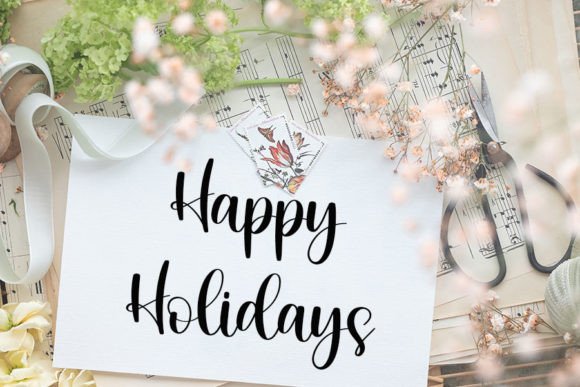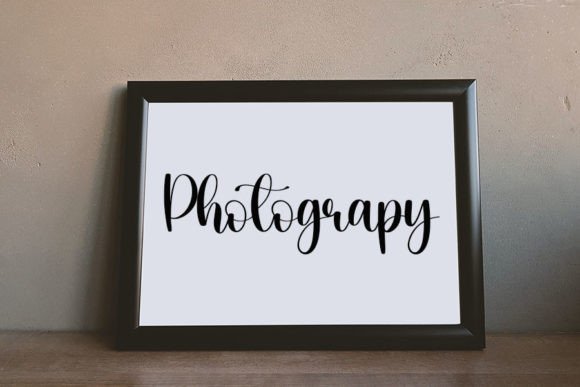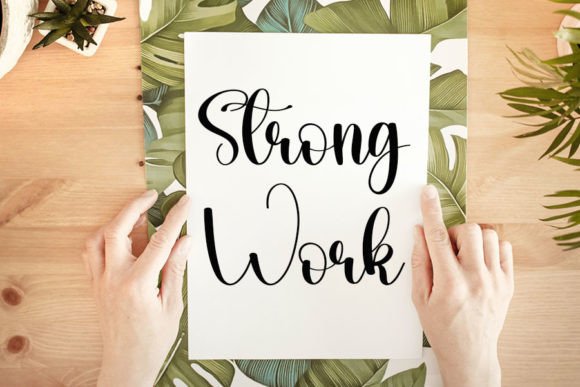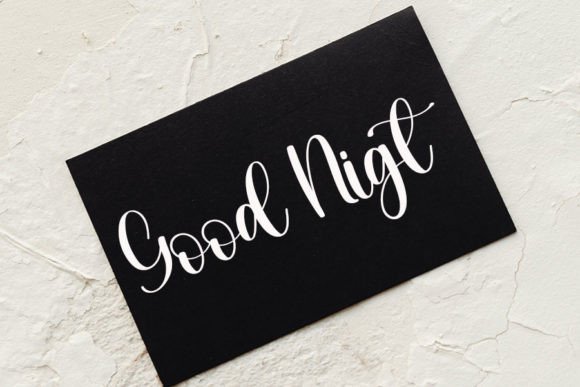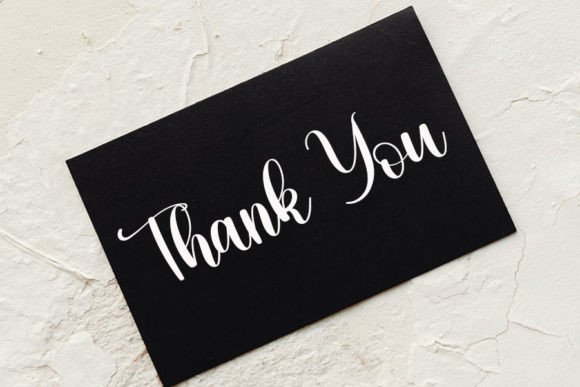
Get Ready to Fall in Love with the Boho Font
Remember that moment when you were brainstorming ideas for a new project and suddenly, a spark of creativity hit you? You felt like you were on top of the world, and all your ideas seemed to flow effortlessly. That’s exactly the feeling you’ll get when you start working with the Boho Font – a fun and friendly handwritten font that’s perfect for any creative endeavor.
| 👤 Author | Ganden Letter |
The Boho Font is designed to bring a touch of whimsy and personality to your designs. Whether you’re a seasoned designer or a crafty enthusiast, this font is sure to become your new favorite go-to. Its versatility makes it ideal for everything from digital design and presentations to handmade crafts and greeting cards.
Boho Font Key Features
- Font Family: Boho Font is a unique, hand-drawn script font that offers a range of styles and weights.
- Unique Characteristics: Features intricate, hand-drawn details and flourishes, giving it a bohemian, artistic feel.
Designer Review: Boho Font
Overall, I think Boho Font is a lovely addition to any design project. The ✨ eclectic, hand-painted feel it brings to the table is perfect for creating a unique and eye-catching aesthetic.
- ✨ The font’s distressed, vintage vibe is spot on for projects that require a bohemian or hippie-inspired feel.
- ✨ The font is highly customizable, allowing you to adjust the color, size, and spacing to suit your design needs.
- ✨ The font is quite legible, making it suitable for both display and body text.
- ⚠️ The font can be a bit too ornate for projects that require a more minimalist or modern aesthetic.
- ⚠️ The font may not be suitable for projects that require a lot of technical or scientific content, as the text may become difficult to read.
In conclusion, Boho Font is a solid choice for designers looking to add a touch of whimsy and personality to their projects. While it may not be suitable for every project, it’s a great option for those who want to create a unique and eye-catching design.
The Boho Font is ideal for creative and artistic projects, such as:
- Artistic quotes and posters
- Journaling and scrapbooking
For the most out of Boho Font, use it in combination with other artistic fonts and decorate it with illustrations and graphics.